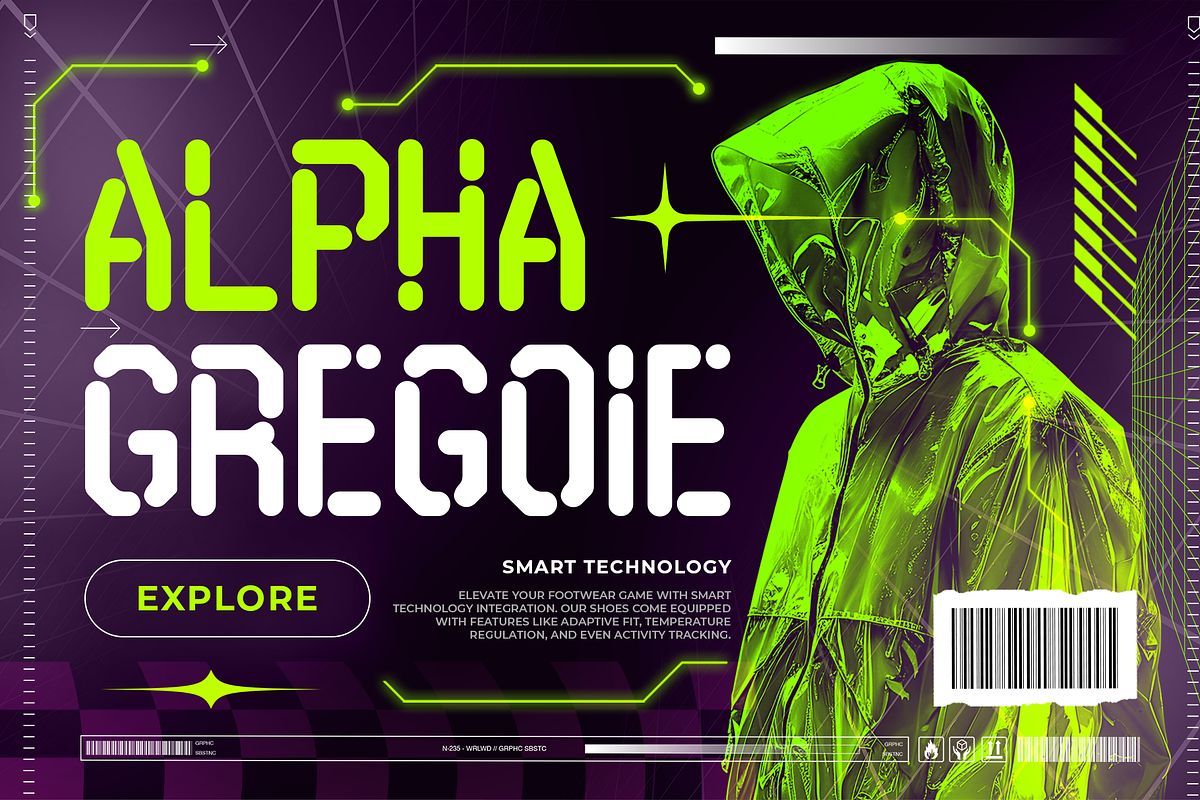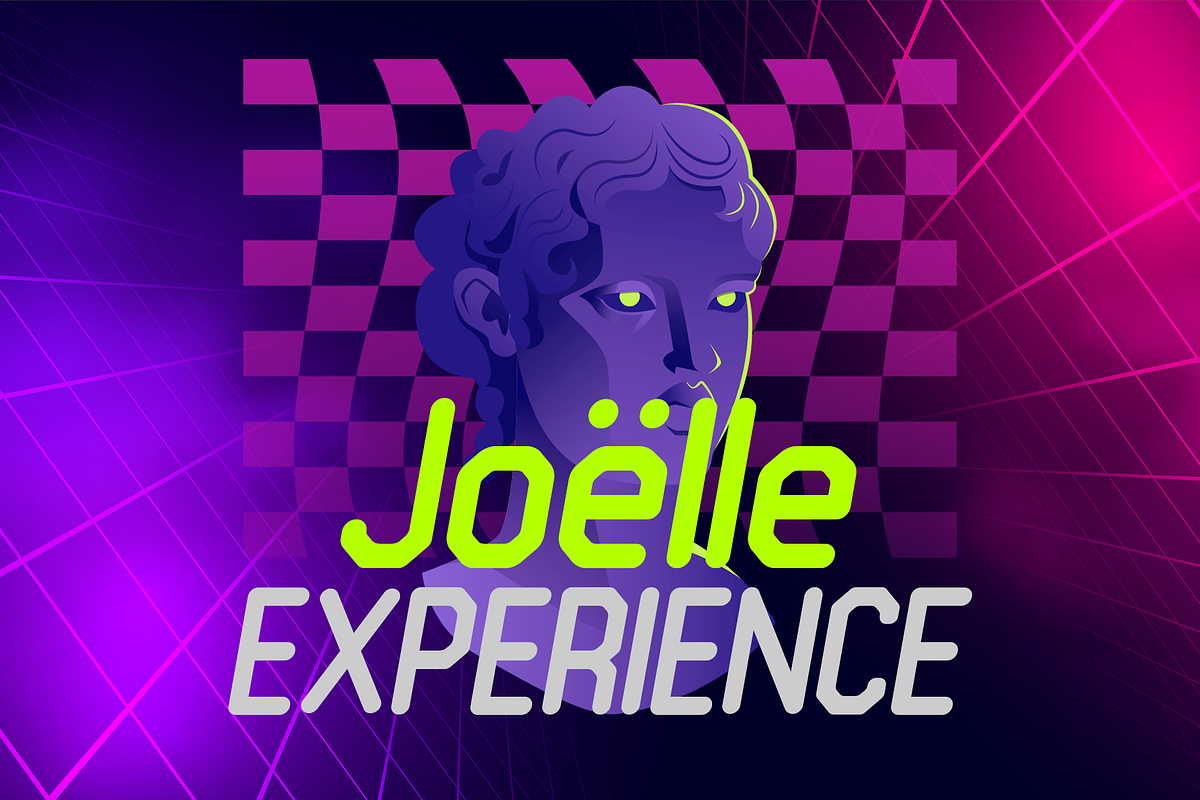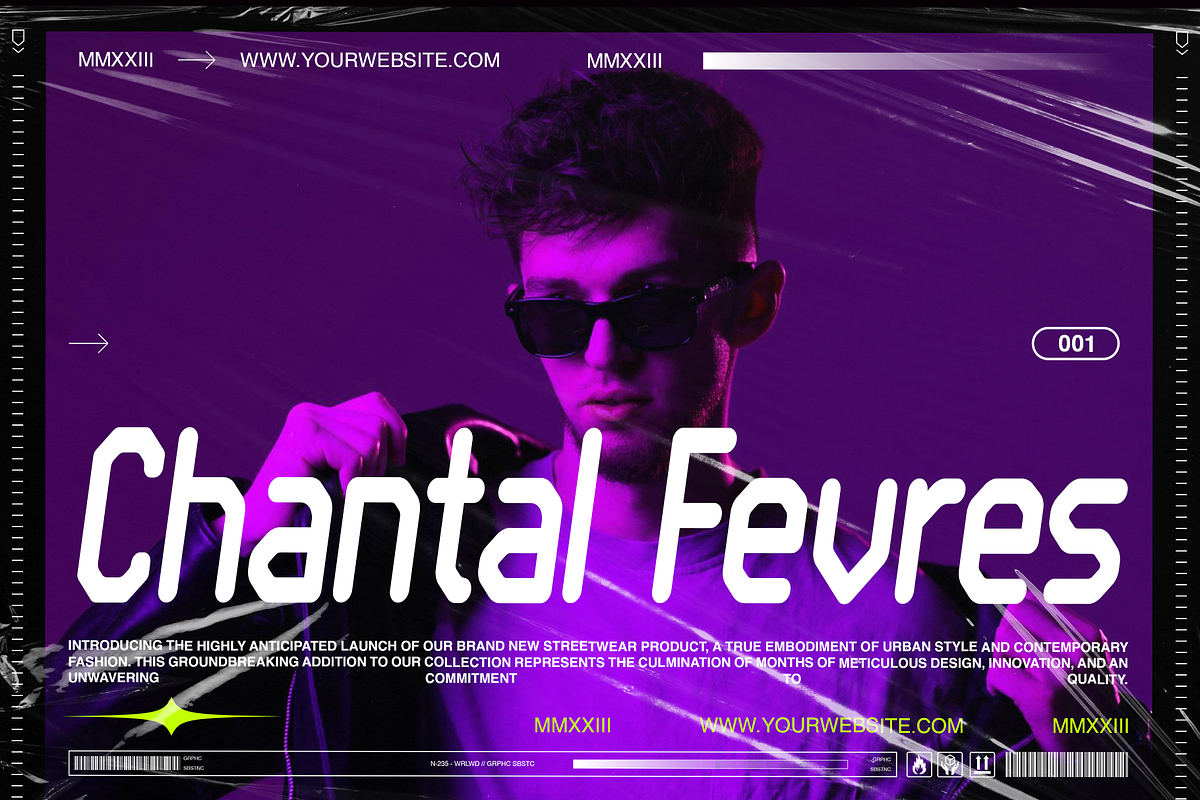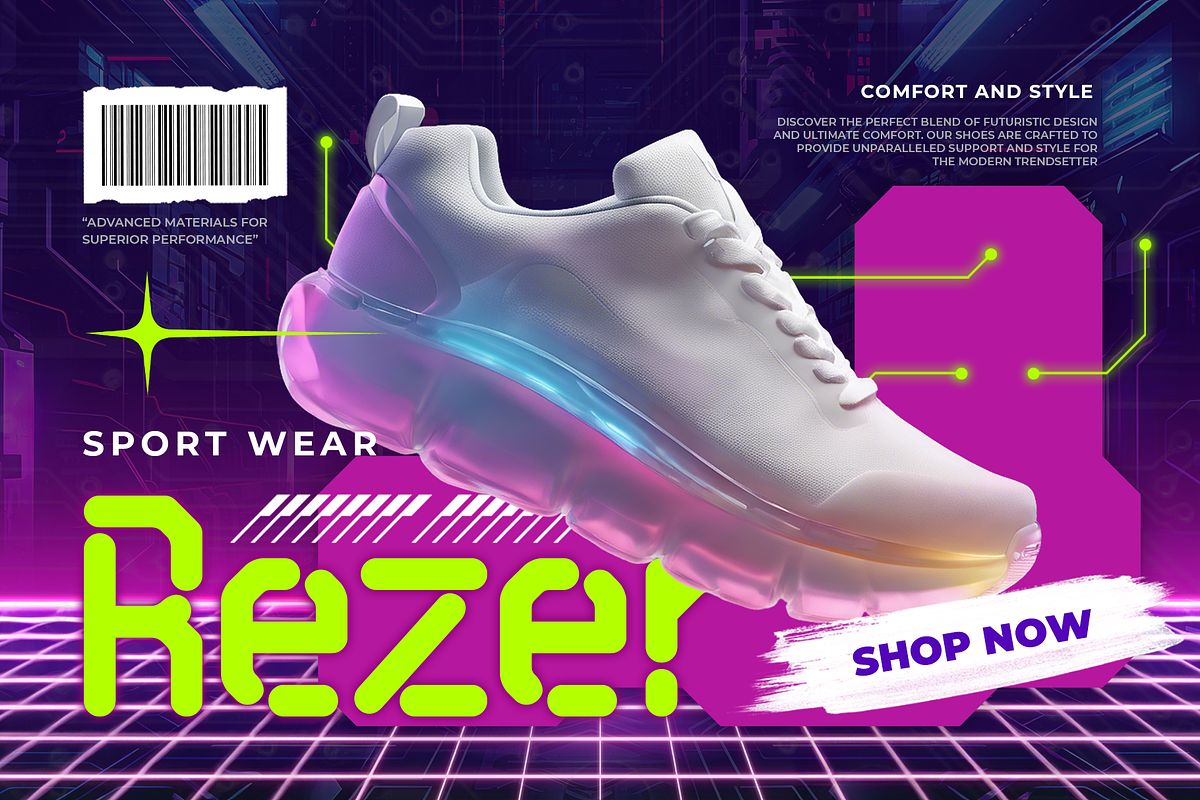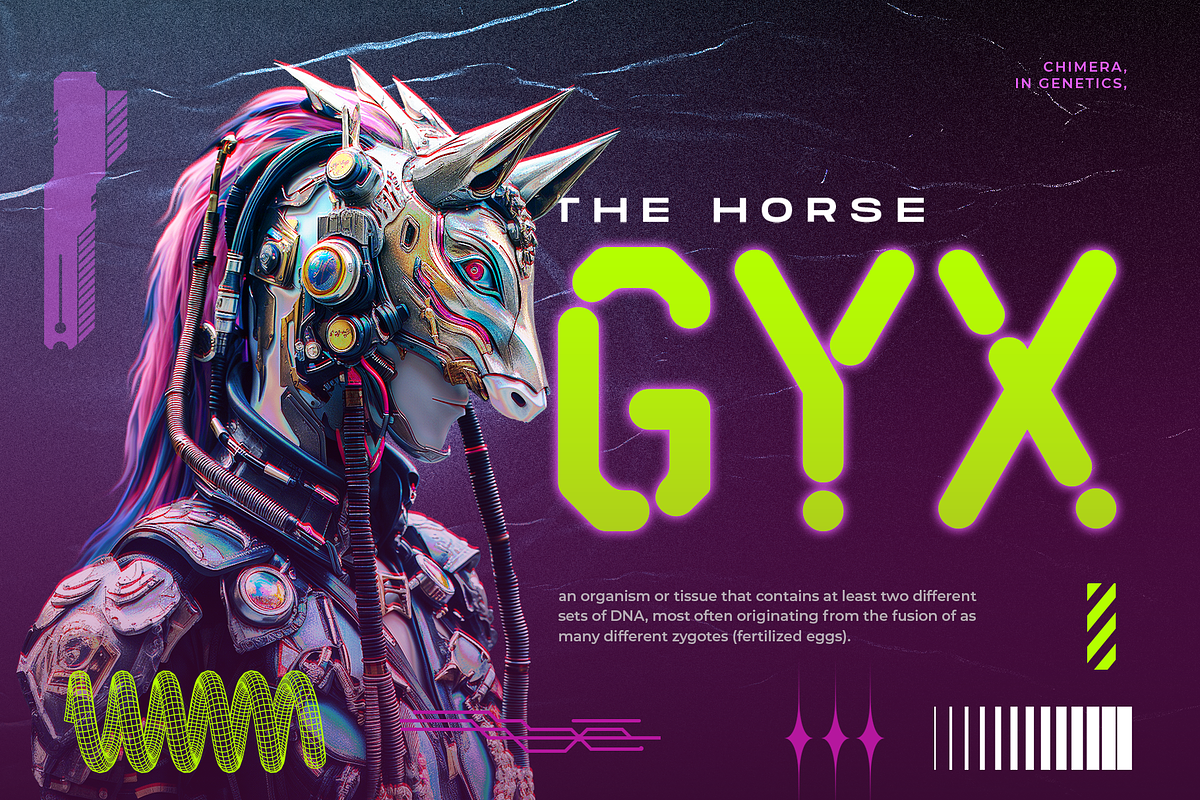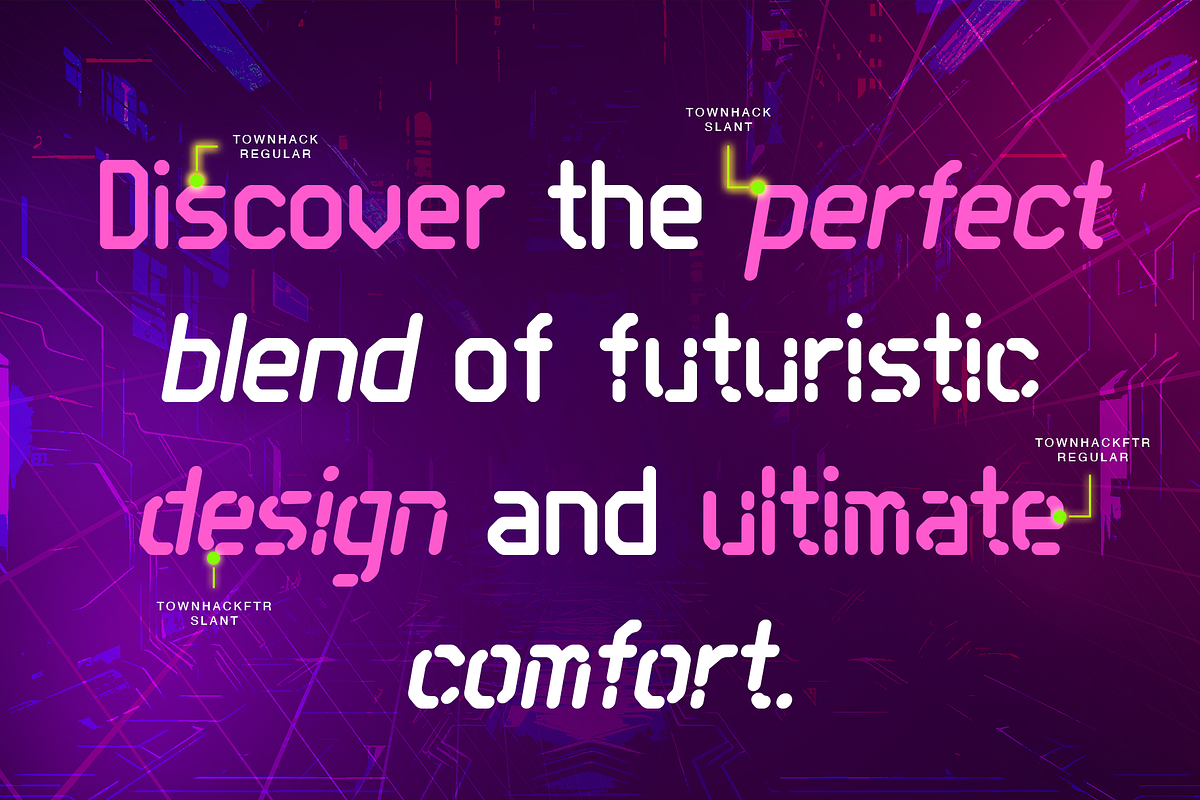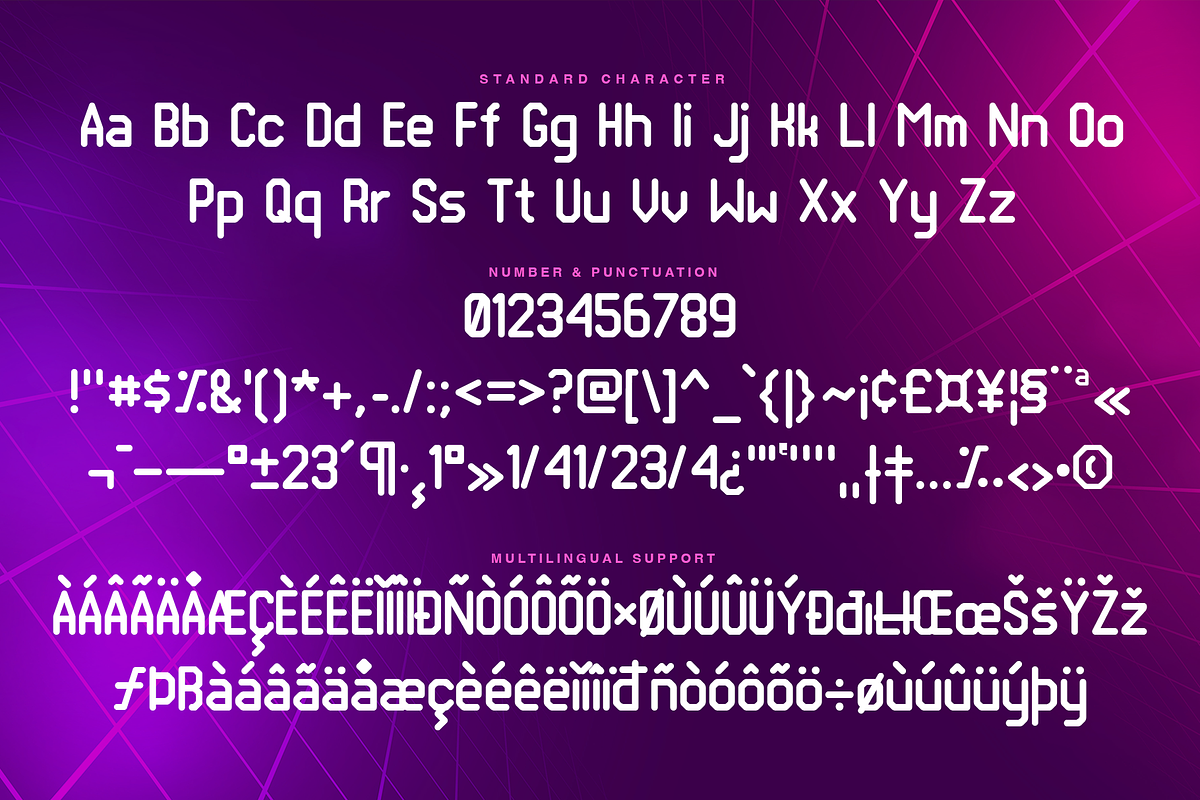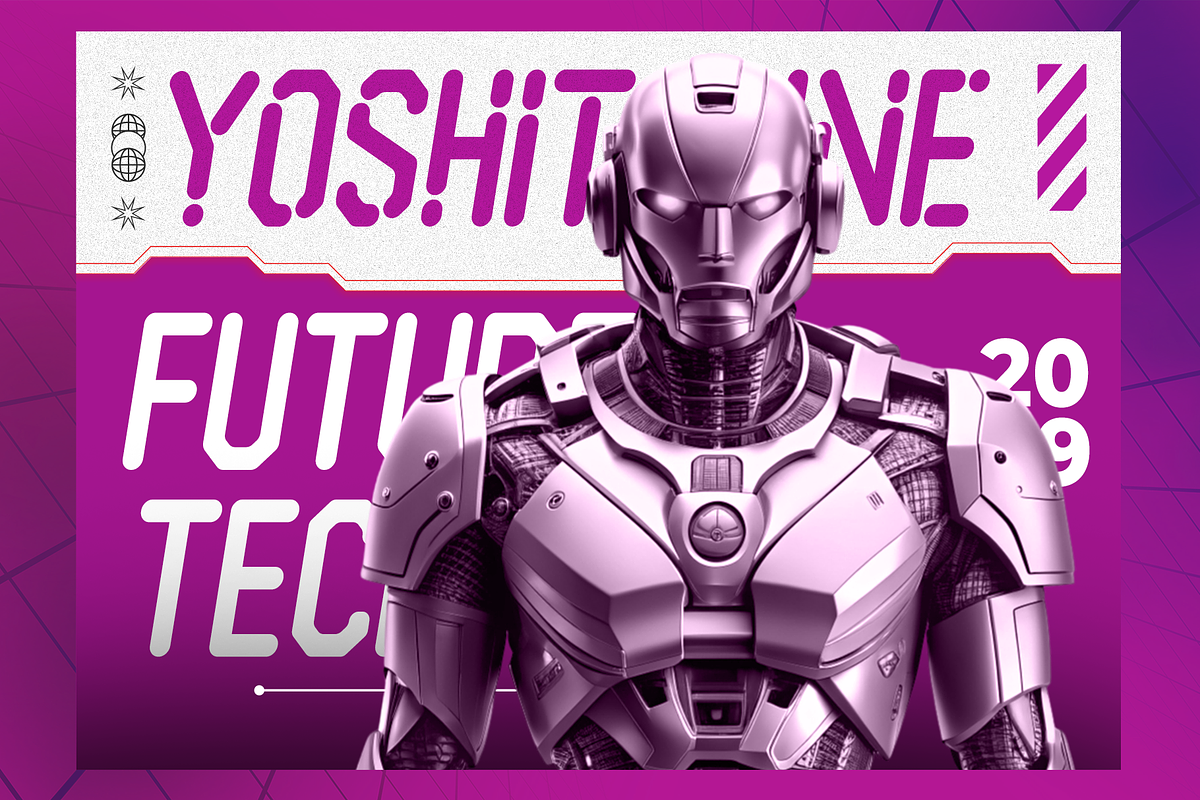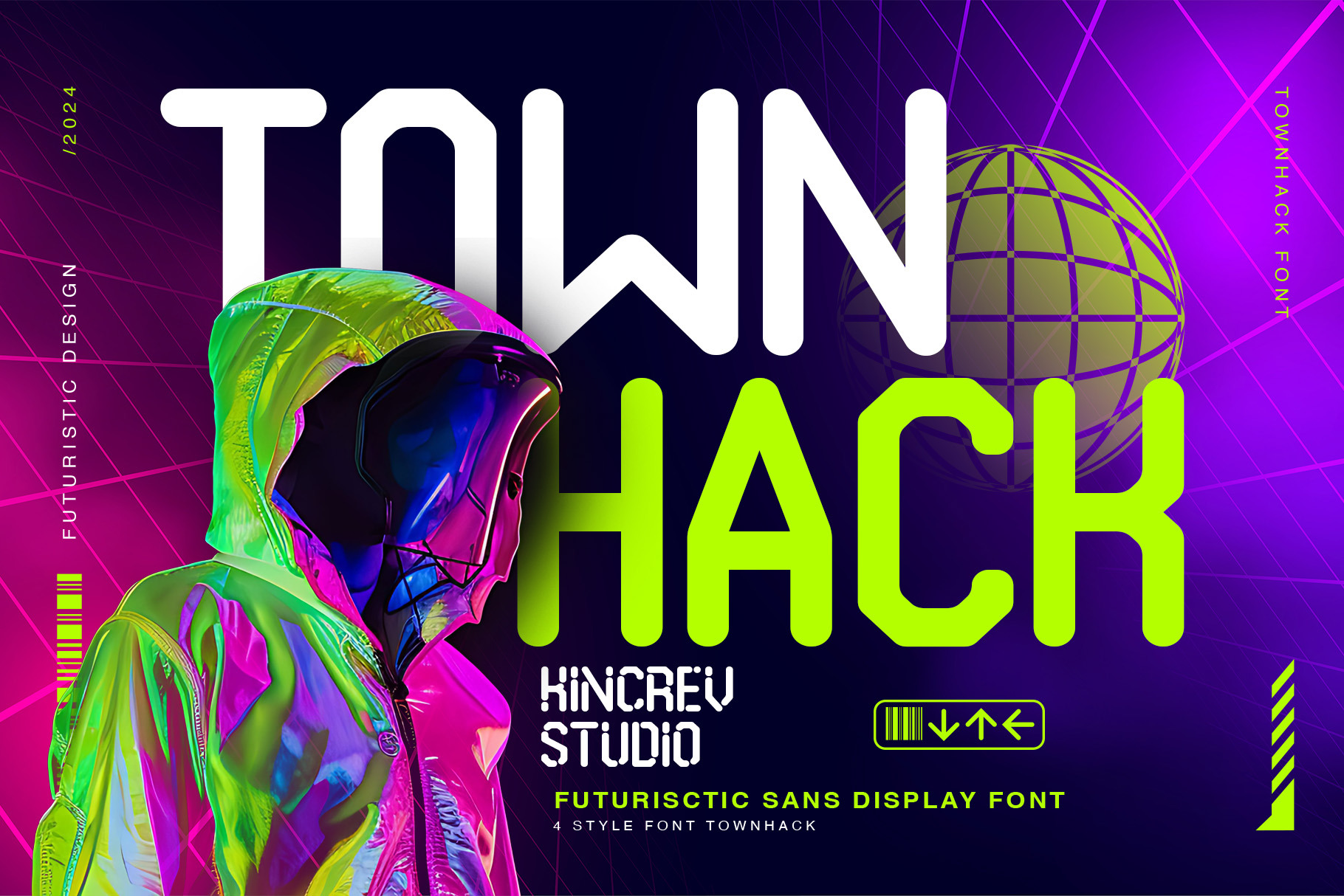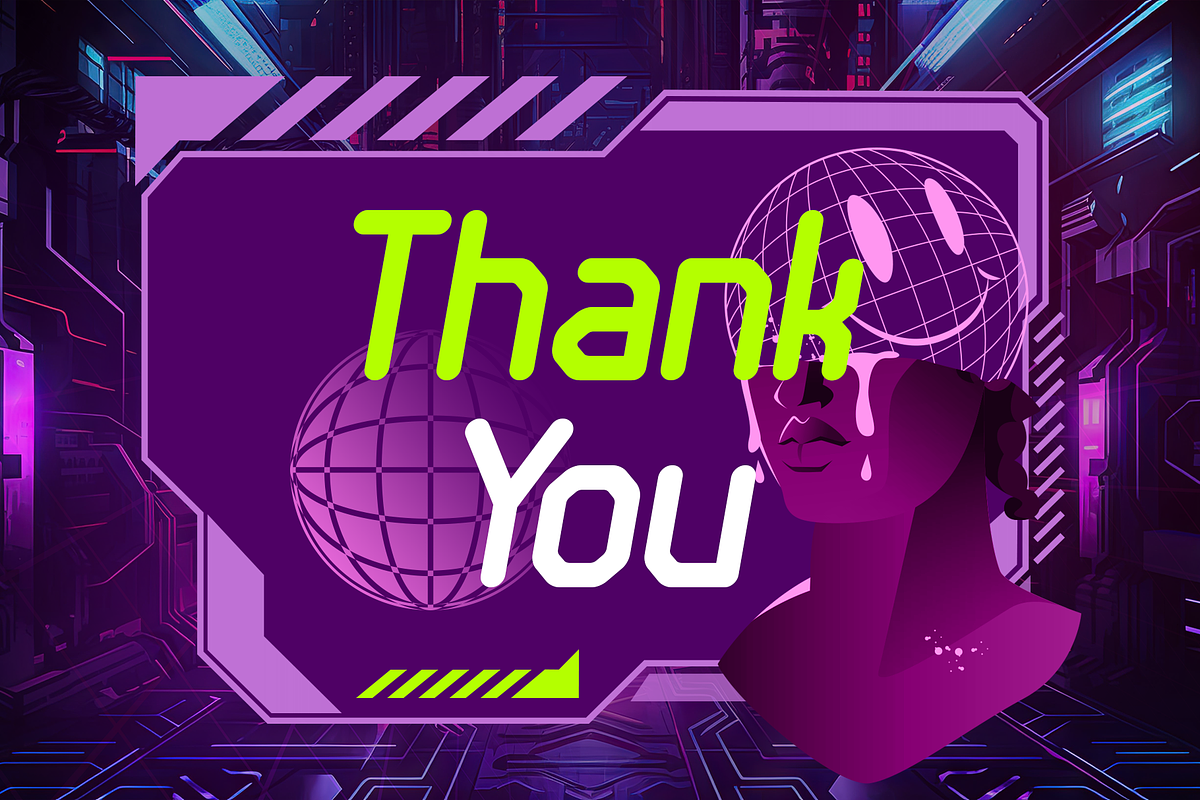
Town Hack - Futuristic Display Font
Hello, Everyone! Ready to make your branding design outstanding? If you need to create a stylist, simple, and modern futuristic look for your business, work on a poster for an event, or whatever your projects are, Town Hack - Futuristic Sans Display Font is the perfect one for you.
Town Hack, a display font is font for you to get your designs with stylist, simple and modern futuristic look. It is made in uppercase & lowercase which are easy on the eyes and nice to look at, and easy to read. This font is designed to bring your brandings to life and add a touch of sporty modern, bold, fun and style.
Town Hack fits for any design projects, such as posters, banners, logos, book covers, album covers, quotes, invitations, greeting cards, name cards, headings, printed products, merchandise, social media, etc. Find out more ways to use this font by taking a look at the font preview.